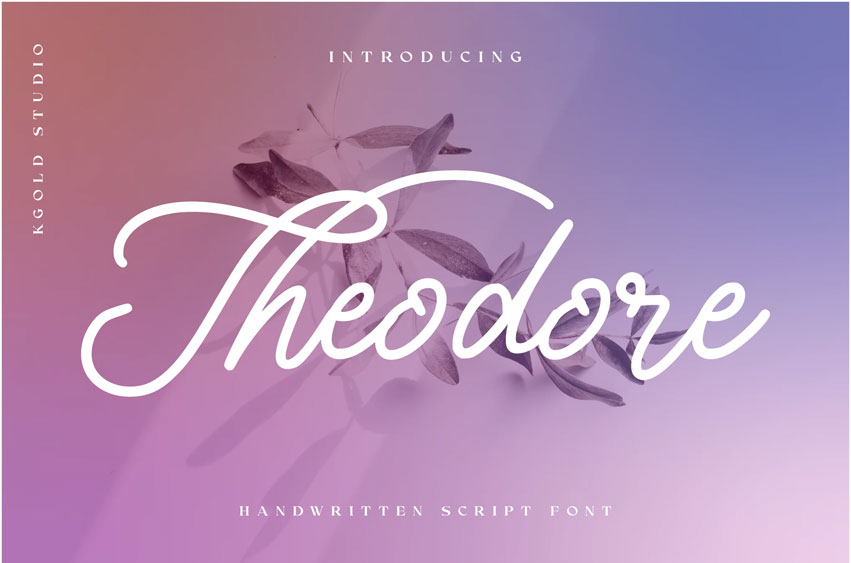
Theodore Font is a luxurious handwritten script font that embodies elegance, sophistication, and a timeless royal charm. Inspired by classic calligraphy, its fluid strokes and graceful curves exude a sense of refinement, making it perfect for high-end branding, invitations, logos, and editorial designs.
Every letter in Theodore is carefully crafted to balance delicacy and grandeur, with smooth transitions and stylish flourishes that add a touch of exclusivity. Whether used for wedding stationery, fashion branding, or premium packaging, Theodore enhances any design with its opulent and artistic appeal.
Embrace the essence of luxury with Theodore—where classic handwriting meets modern elegance.